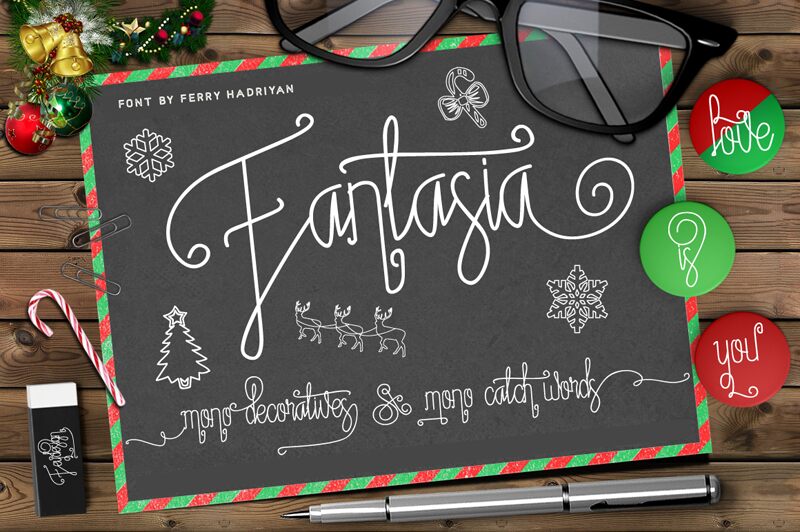
Fantasia Decorative font by FHFont is a whimsical dingbats typeface crafted with intricate flourishes. It is filled with decorative elements that evoke the holiday spirit ranging from winter-themed forms to ornamental styles. The different designs go beyond the typical by mixing truly festive and fun can take your artwork to a new level of creativity.